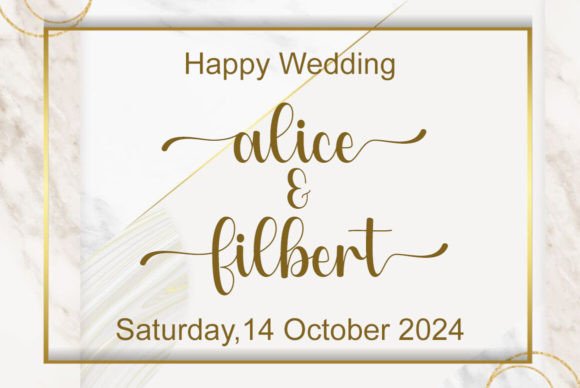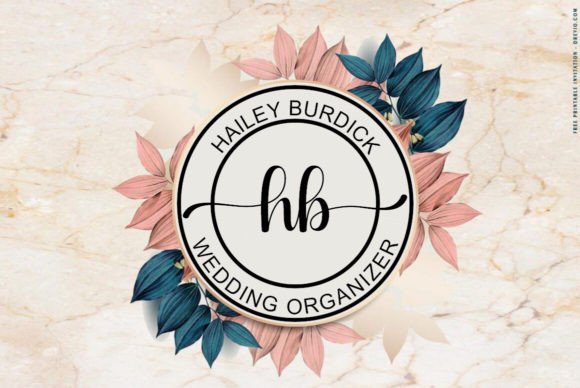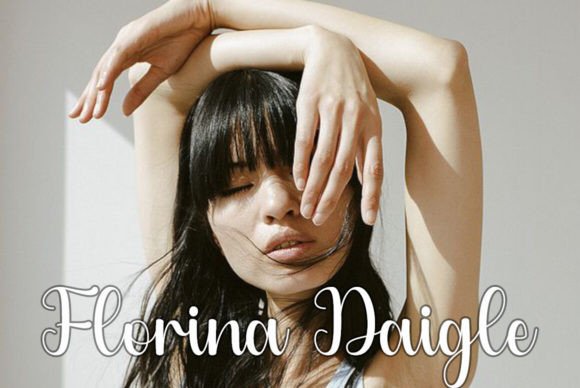
Introduction to Head Font
Remember that moment when you’re brainstorming ideas for a creative project and you stumble upon the perfect font to elevate your design? It’s like a spark of inspiration that sets everything off in the right direction. For many designers, that perfect font is the Head Font – a stunning, elegant handwritten font that adds a touch of sophistication to any design.
Whether you’re working on a wedding invitation, a thank you card, or a logo, the Head Font is sure to make a lasting impression. Its PUA encoding means you can access all the glyphs and alternates with ease, giving you complete control over your design. This versatile font is a valuable resource for any designer looking to add a handwritten touch to their work.
Key Features of Head Font
- High-quality, professional design suitable for various creative projects, including logos, branding, and digital art.
- Designed with a transparent background, providing maximum flexibility for designers and artists.
- Comes in a variety of sizes, including 20px, 24px, 30px, and 36px, catering to different design requirements and preferences.
- Features a high resolution of 300 DPI, ensuring crisp and clear typography, even when scaled up or used in large formats.
- Unique characteristics include a modern and sleek aesthetic, making it an ideal choice for designers seeking a contemporary look and feel.
Honest Review: Head Font
As a designer, I’m always on the lookout for fresh design resources to elevate my creative projects. Recently, I stumbled upon Head Font, and I’m excited to share my thoughts on this free download.
What works well: ✨ The Head Font family boasts a sleek, modern aesthetic that’s perfect for contemporary design projects. I particularly love the clean lines and minimalist feel, making it an excellent choice for logos, branding materials, and even web design. The transparent background option is also a nice touch, allowing for seamless integration with any background image or color.
- High-quality typography with a wide range of weights and styles
- Easy to use and customize for various design projects
However, I do have a few limitations to note: ⚠️ While the font family is extensive, I wish there were more bold and condensed styles available. Additionally, the font’s versatility is largely dependent on the specific project requirements, so be prepared to experiment with different weights and combinations to achieve the desired look.
Overall impression: Head Font is a solid addition to any designer’s toolkit. Its clean design and high-quality typography make it an excellent choice for a wide range of creative projects. While it may not be perfect, its strengths far outweigh its limitations, making it a worthwhile download for designers of all levels.
Head Font is ideal for use in creative projects such as logo design, branding, and marketing materials. It’s also perfect for adding a touch of sophistication to presentations, documents, and websites. With its high-quality design and transparent background feature, Head Font is a must-have design resource for any creative professional.